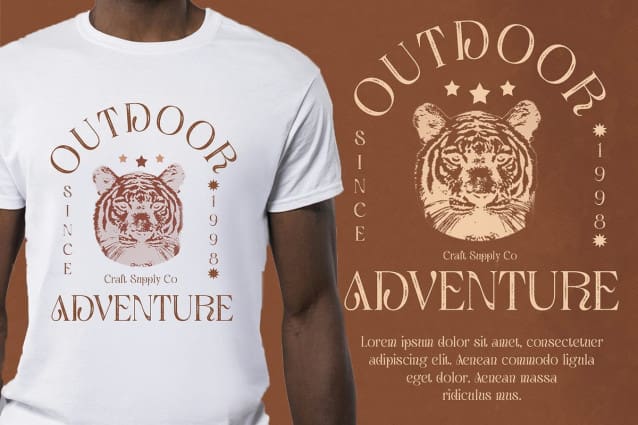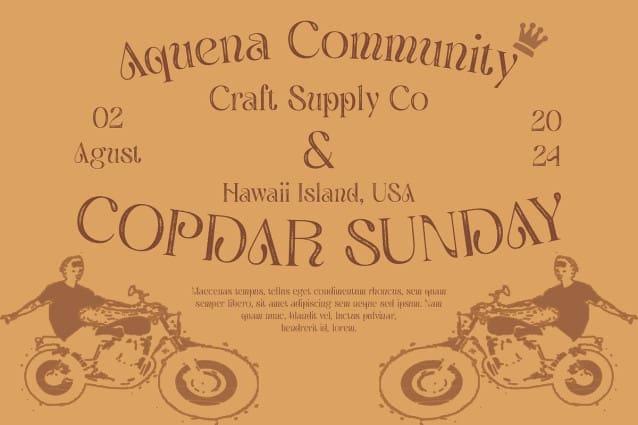
Aquene Stamp Font
Aquene Stamp Font: A Serene Blend of Art Nouveau and Formality. Embracing Art Nouveau Aesthetics Aquene Stamp features a serif display style infused with the graceful curves and intricate detailing of Art Nouveau design. Its flowing lines and decorative elements evoke a sense of artistic flair.
Serious Yet Elegant Despite its flowing appearance, Aquene Stamp maintains a sense of seriousness and formality. The balance between fluidity and structure ensures that the font retains its elegant demeanor, suitable for formal applications.
Stamp Effect for Distinctiveness Enhancing its appeal,This font incorporates a stamp effect that adds a unique touch to its design. This distinctive feature sets the font apart, making it ideal for eye-catching display purposes.
Versatile Display Usage This font is versatile in its application, suitable for a wide range of display needs. From elegant invitations to sophisticated branding materials, its blend of Art Nouveau aesthetics and formal undertones makes it a versatile choice.
Elegance with a Touch of Artistry This font offers a harmonious blend of Art Nouveau design and formal elegance. With its flowing lines, stamp effect, and versatile usage, it adds a unique charm to any display project, exuding sophistication and artistic appeal.